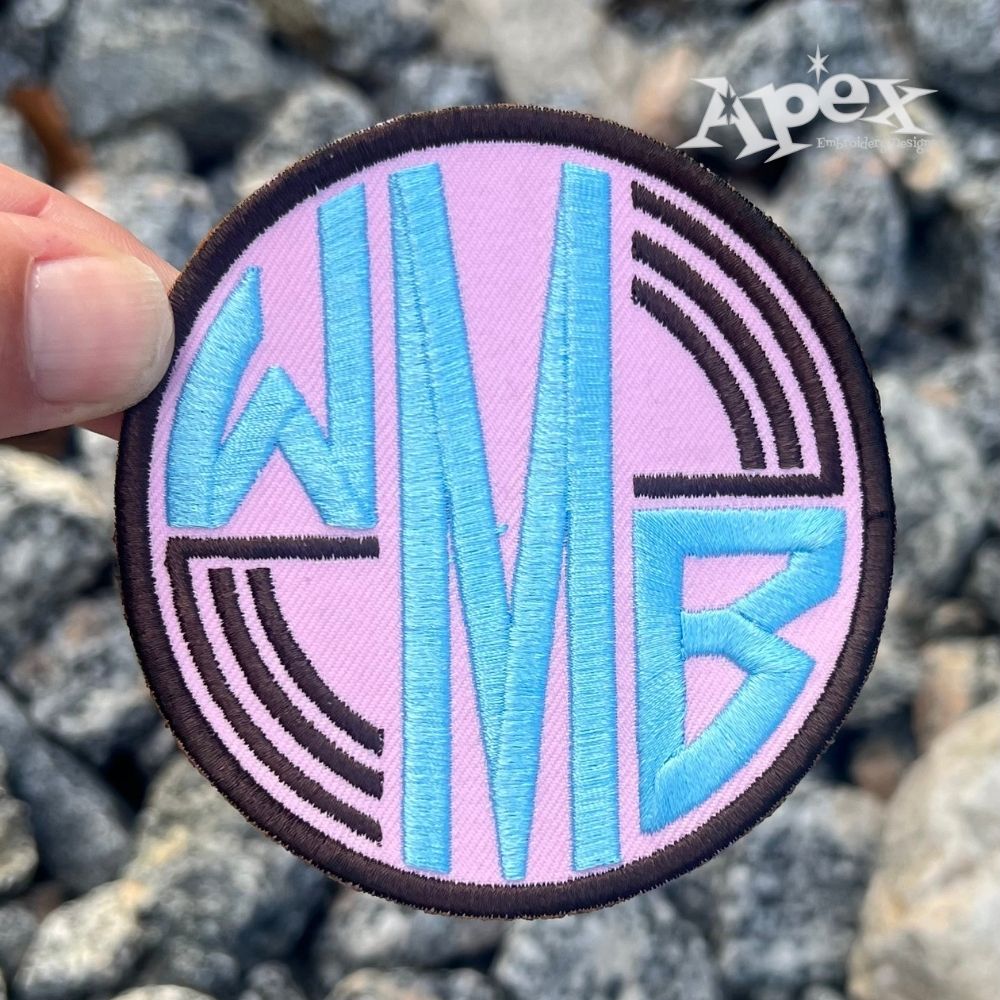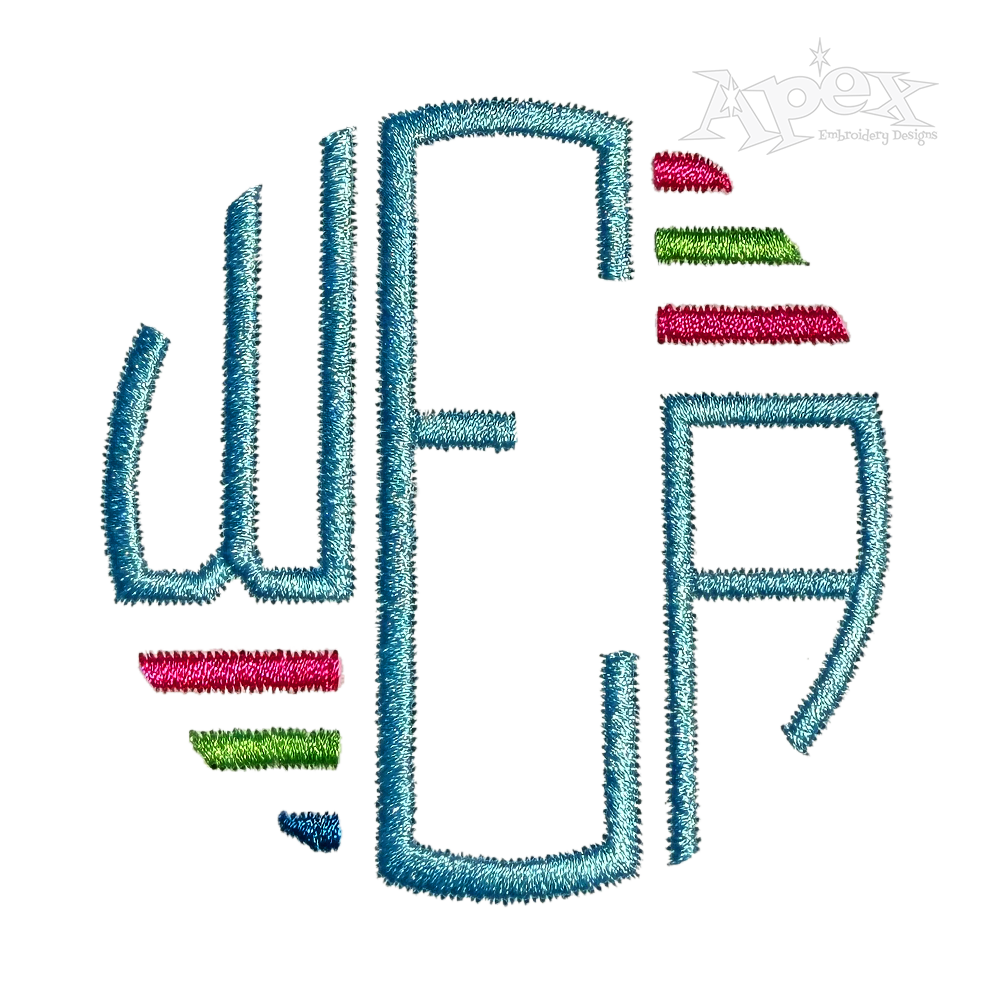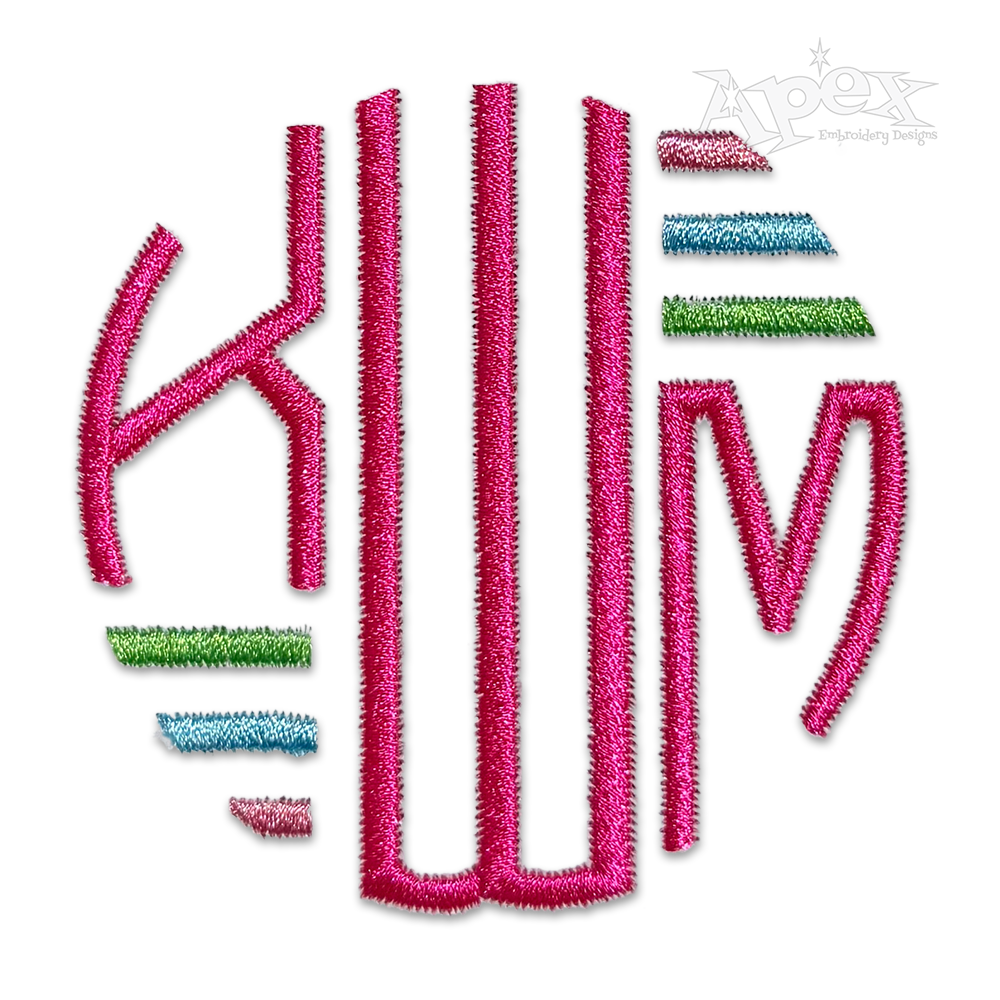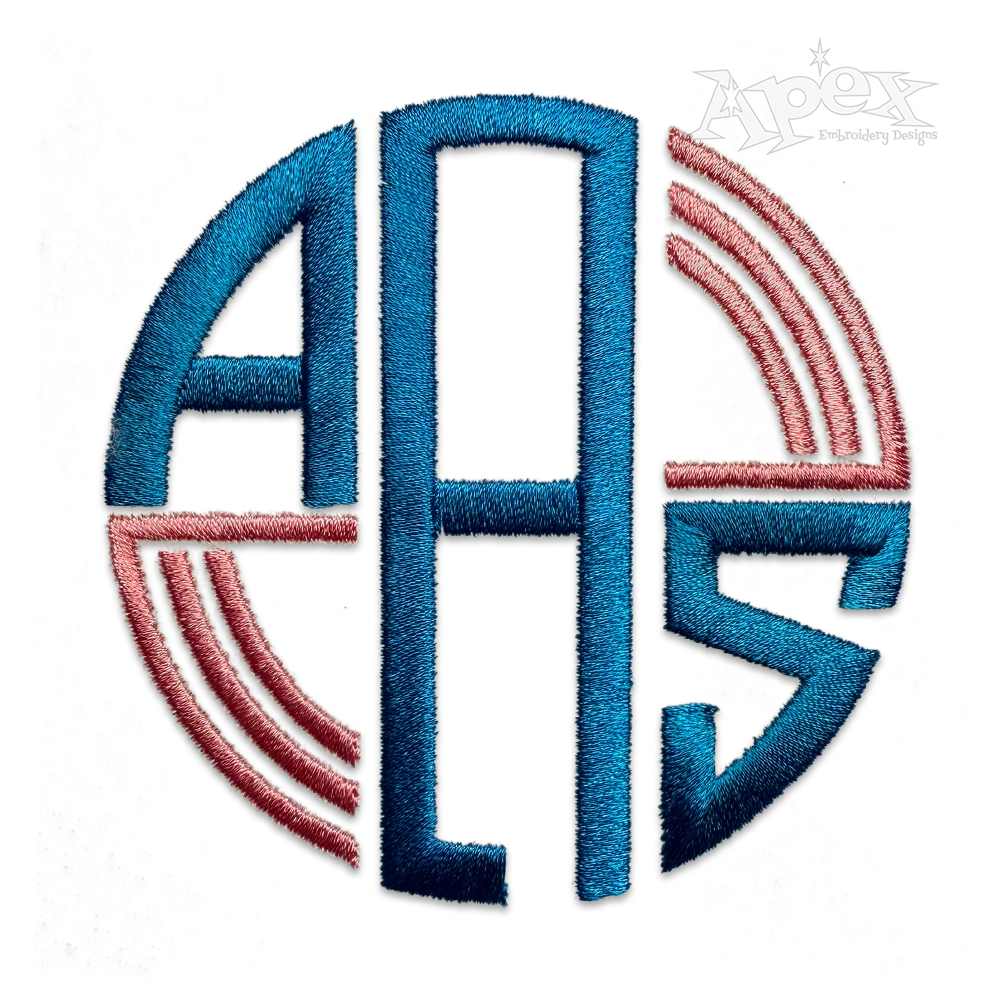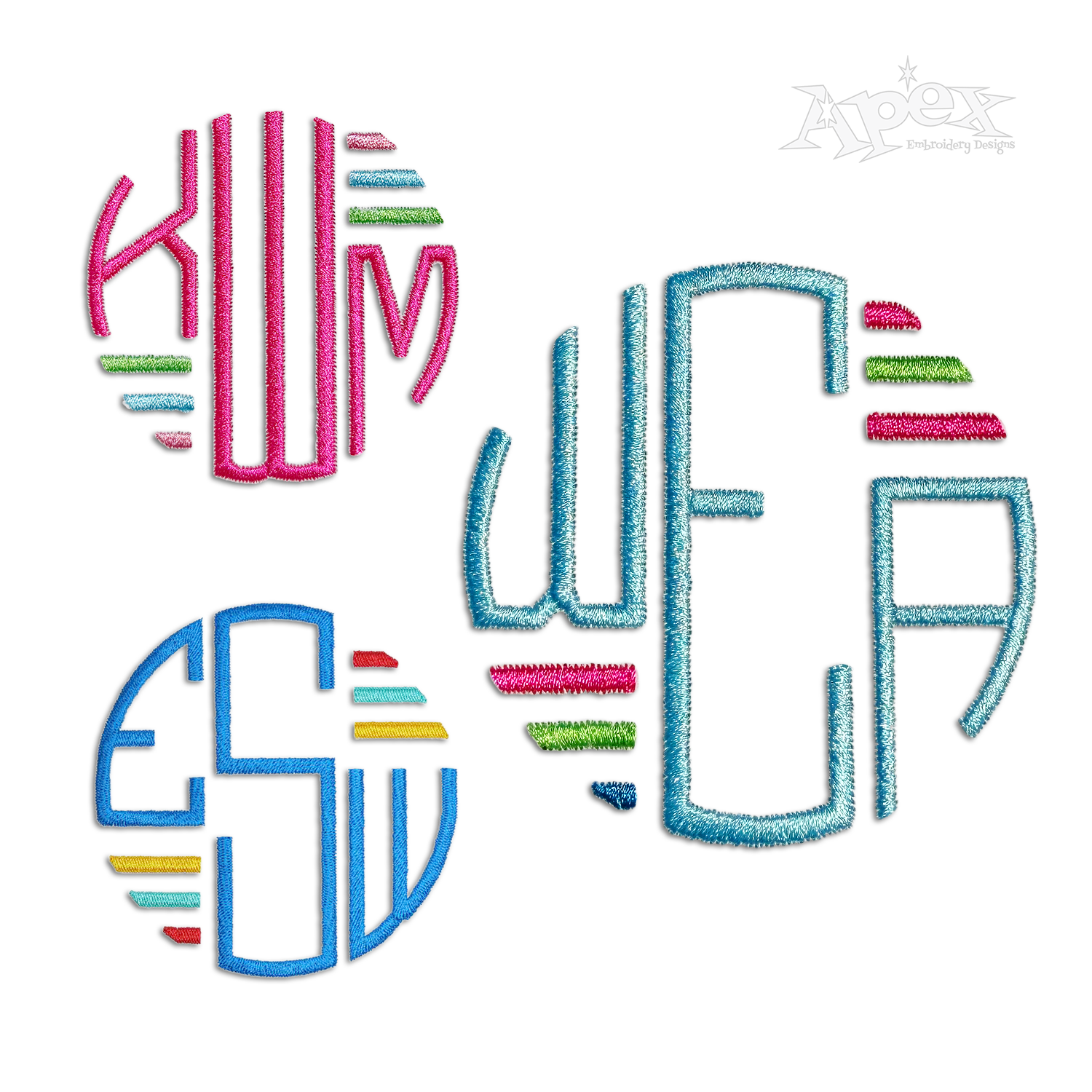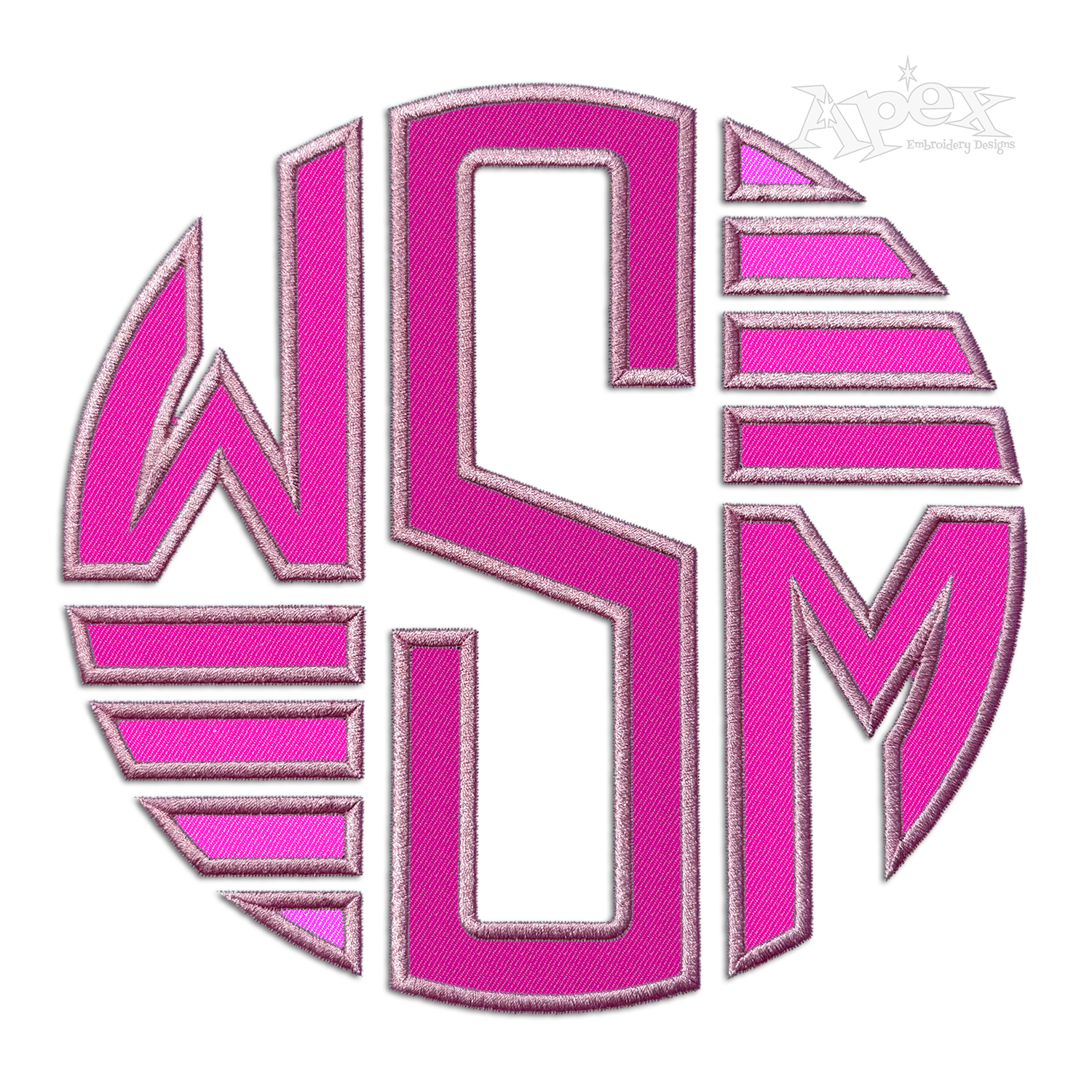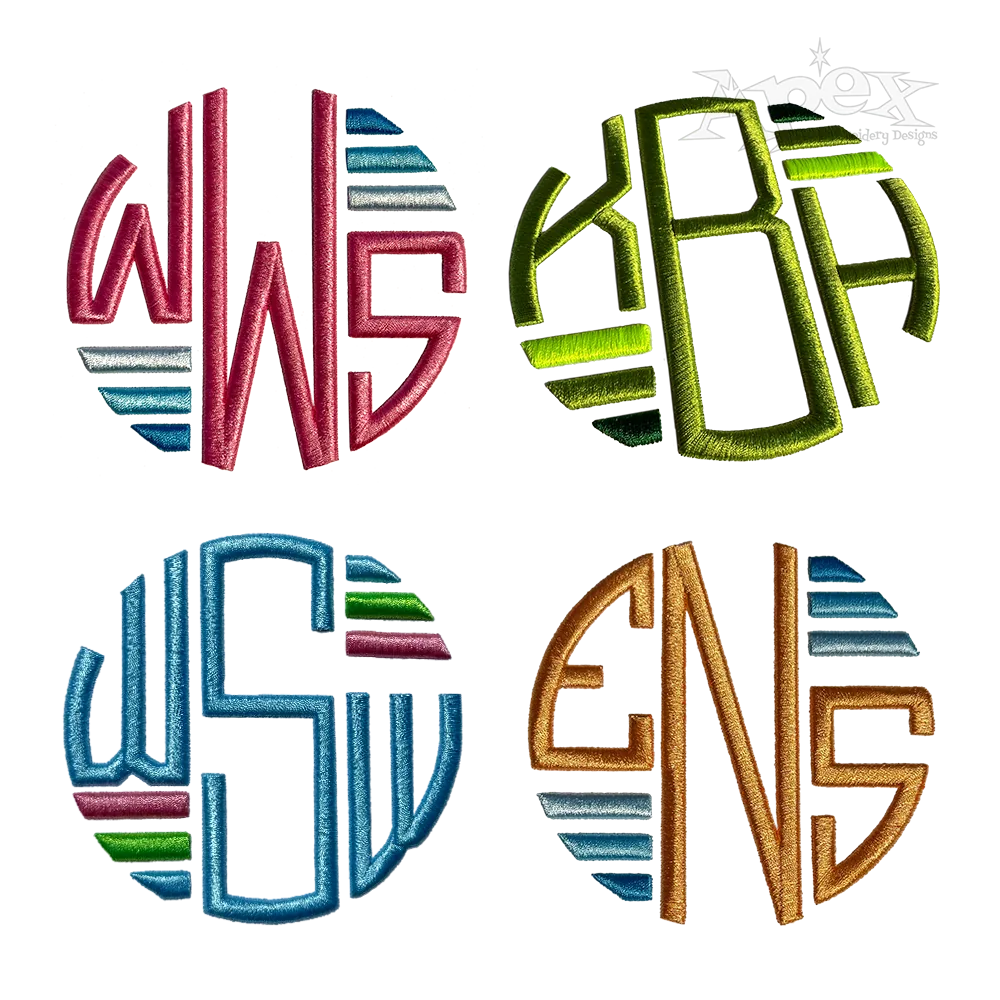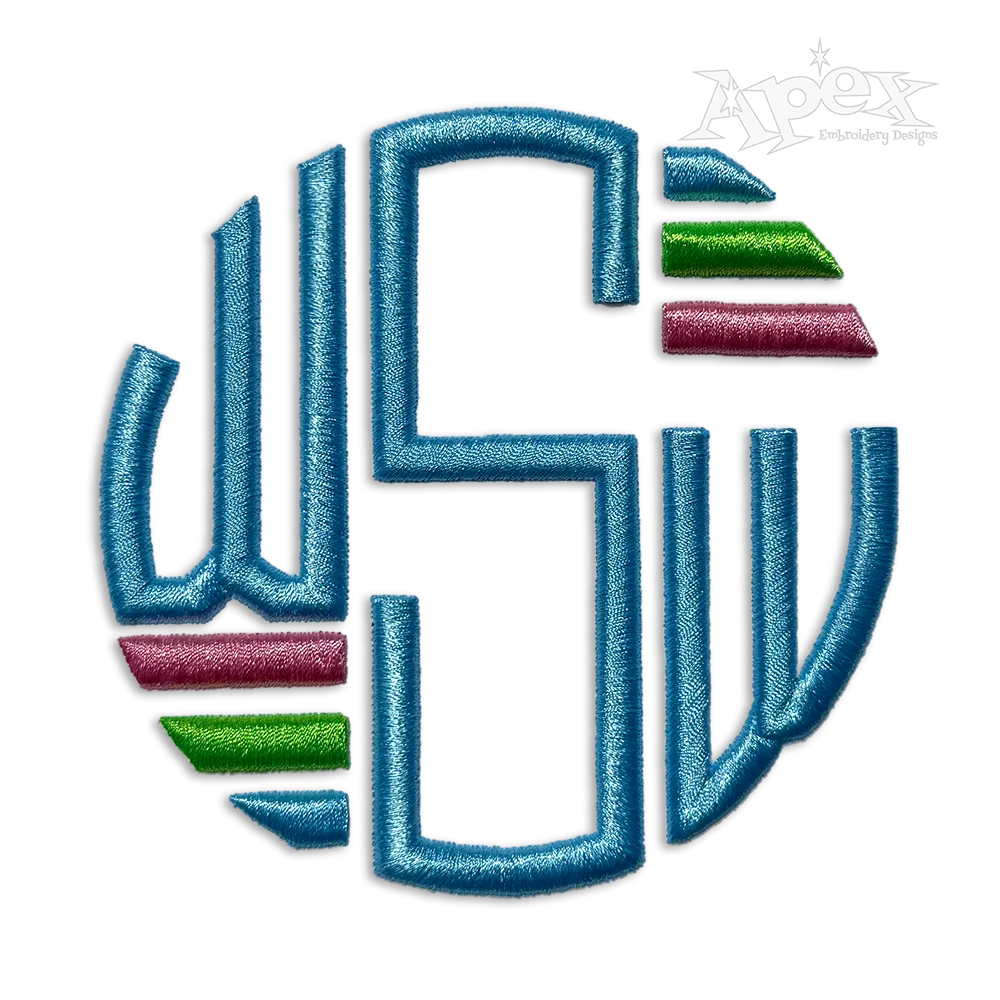
Round Circle Lined 3D Puff Monogram Font
There is an undeniable, sculptural thrill when embroidery breaks free from a flat plane and leaps into dramatic, tactile relief. In creating our Round Circle Lined 3D Puff Monogram Font, we envisioned a design that harmonizes the enduring symmetry of classic medallion seals with the crisp, modern edge of dimensional craft foam stitchery. Each letterform is thoughtfully shaped within a clean circular boundary, accented with crisp interior negative-space line cuts that reveal depth as the thread builds. The result is a bold, bespoke monogram with high-impact visual depth, transforming standard threads and foam into an elevated, touchable statement reminiscent of couture streetwear and heritage country club insignia.
Project Ideas for Round Circle Lined 3D Puff Monogram Font
- Structured Headwear & Caps: Stitch bold, dimensional monograms across the front crowns of structured baseball caps, snapbacks, and trucker hats for an authentic retail-quality look.
- Heavyweight Outerwear & Sweatshirts: Add athletic-luxe appeal to collegiate crewnecks, varsity bomber jackets, and heavy fleece hoodies.
- Bespoke Golf & Gear Bags: Elevate canvas tournament duffels, golf club headcovers, and personalized shoe bags with durable, raised personalization.
- Luxury Travel & Beach Goods: Provide standout monogramming on heavy canvas boat totes, oversized weekenders, and thick loop terry beach towels.
- Tailored Gifting: Personalize custom tech sleeves, zip pouches, and denim jackets for personalized gifting that leaves a lasting, tactile impression.
- Front Crown of Headwear: Center the monogram cleanly above the brim on structured panels, where the 3D foam creates immediate depth and presence.
- Left Chest & Center Chest: Place the 2.5" or 3.0" size on the left chest of outerwear, or choose the 4.0" version for a commanding center-chest statement on casual pullovers.
- Bag Pockets & Flaps: Position the circle emblem dead-center on exterior zip pockets, backpack panels, or tote bag faces for balanced symmetry.
- Upper Sleeve & Bicep: Stitch a crisp 2.0" or 2.5" monogram on the shoulder or sleeve of a track jacket for a refined, modern athletic aesthetic.
Round Circle Lined 3D Puff Monogram Craft & Letterform Details
Digitizing for 3D puff embroidery requires an entirely different master approach than traditional flat satin lettering. If the satin tension is too slack, foam peeks through; if underlay placement is misguided, the foam shreds before the caps can lock down. Our master digitizers meticulously calibrated every curve and intersection in this monogram font to ensure smooth, effortless execution. Sharp specialty perforating underlays are engineered along the outer borders to cleanly slice through craft foam, allowing excess foam to peel away cleanly without frustrating cleanup.
The outer circular curve and interior character walls feature an elevated satin density specifically tuned to hug high-loft embroidery foam. The signature internal lined detail creates an intentional geometric contrast, breaking up broad satin fields to ensure the letters maintain structural stability and crisp edge definition. When the needle finishes its final lock stitch, what remains is a firm, pillowy architectural monogram that retains its proud loft through wear, travel, and wash.